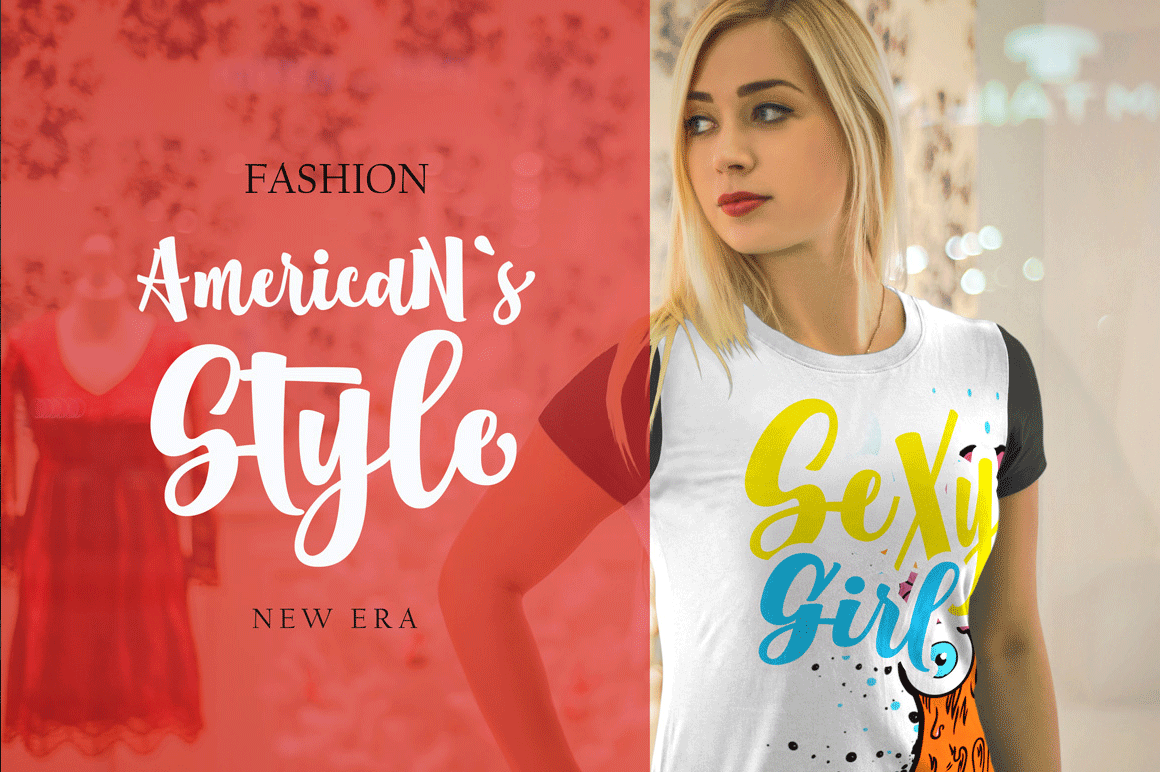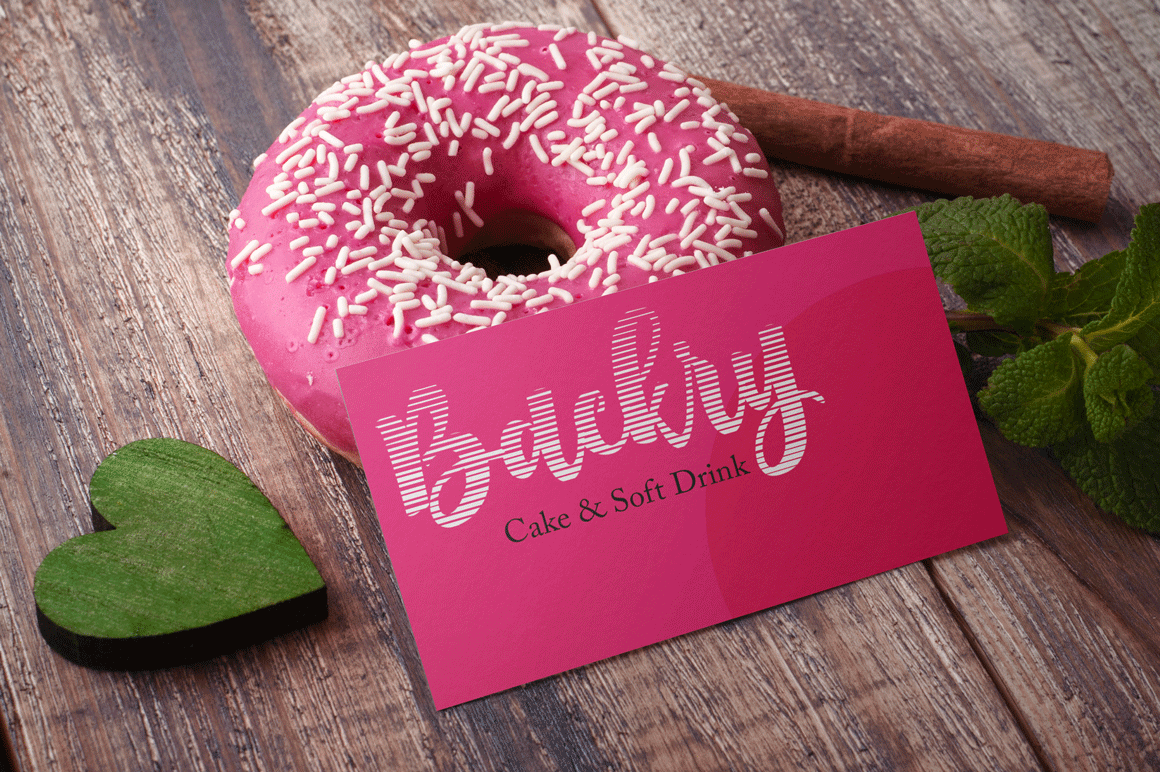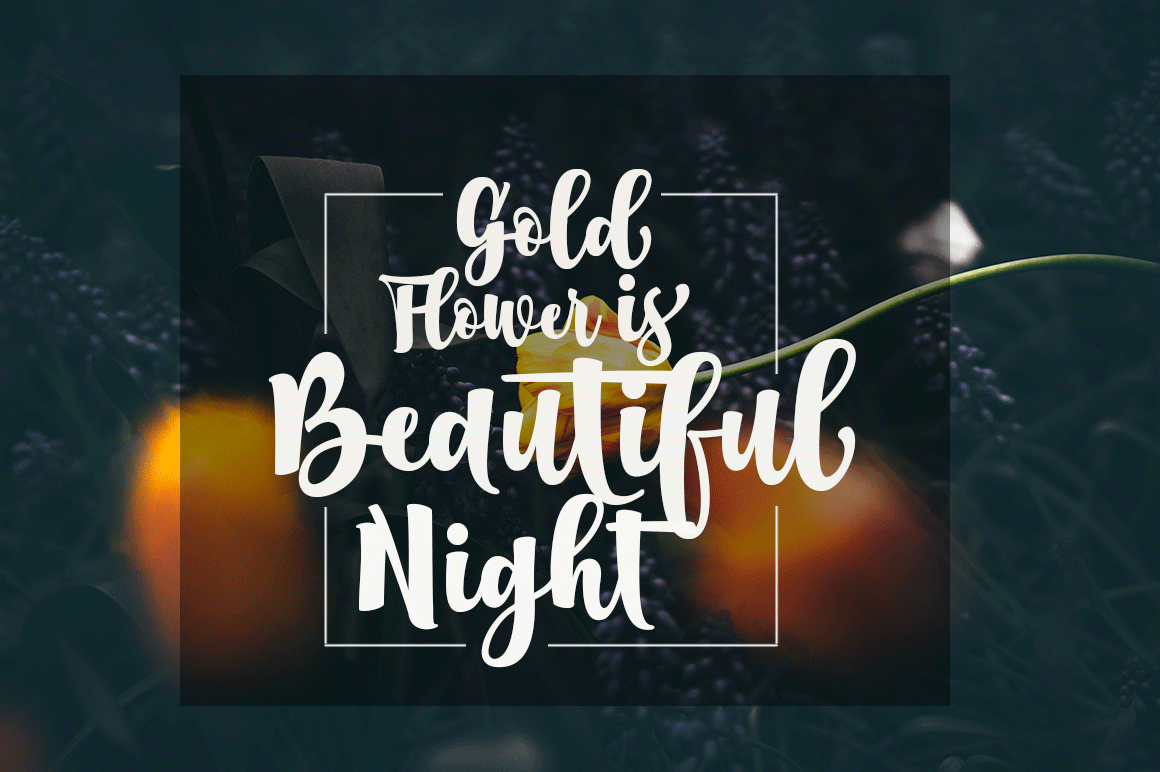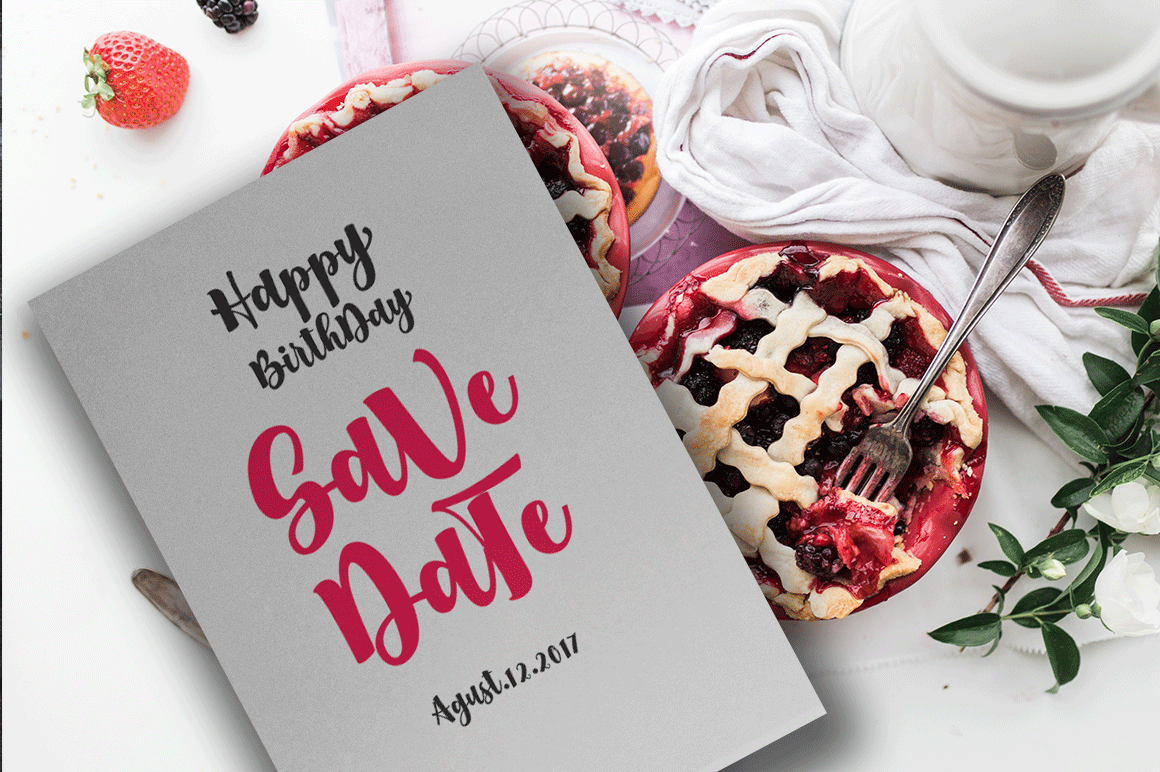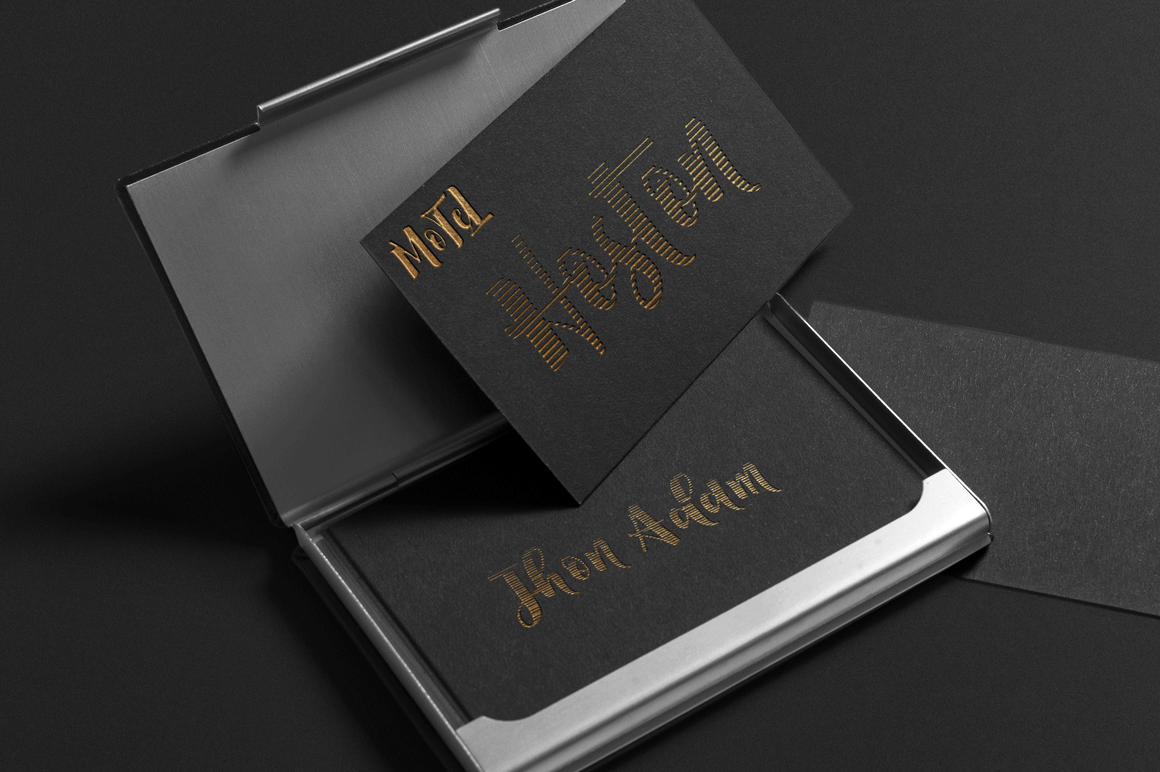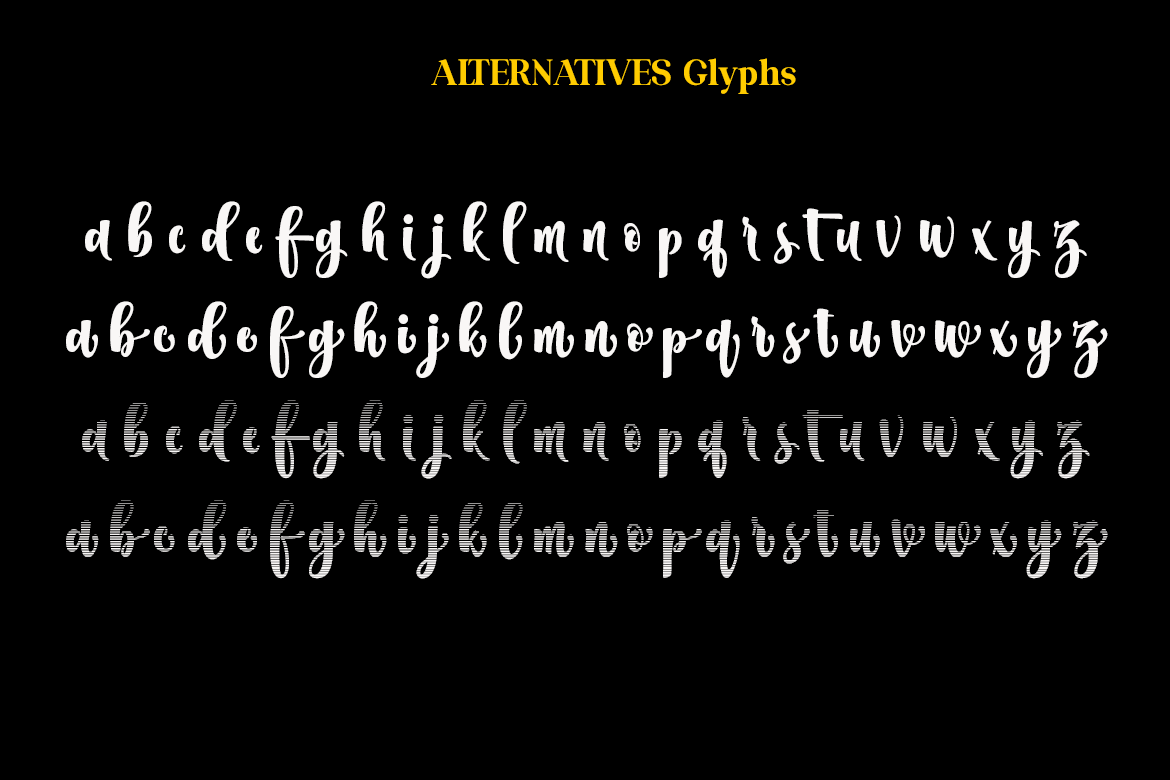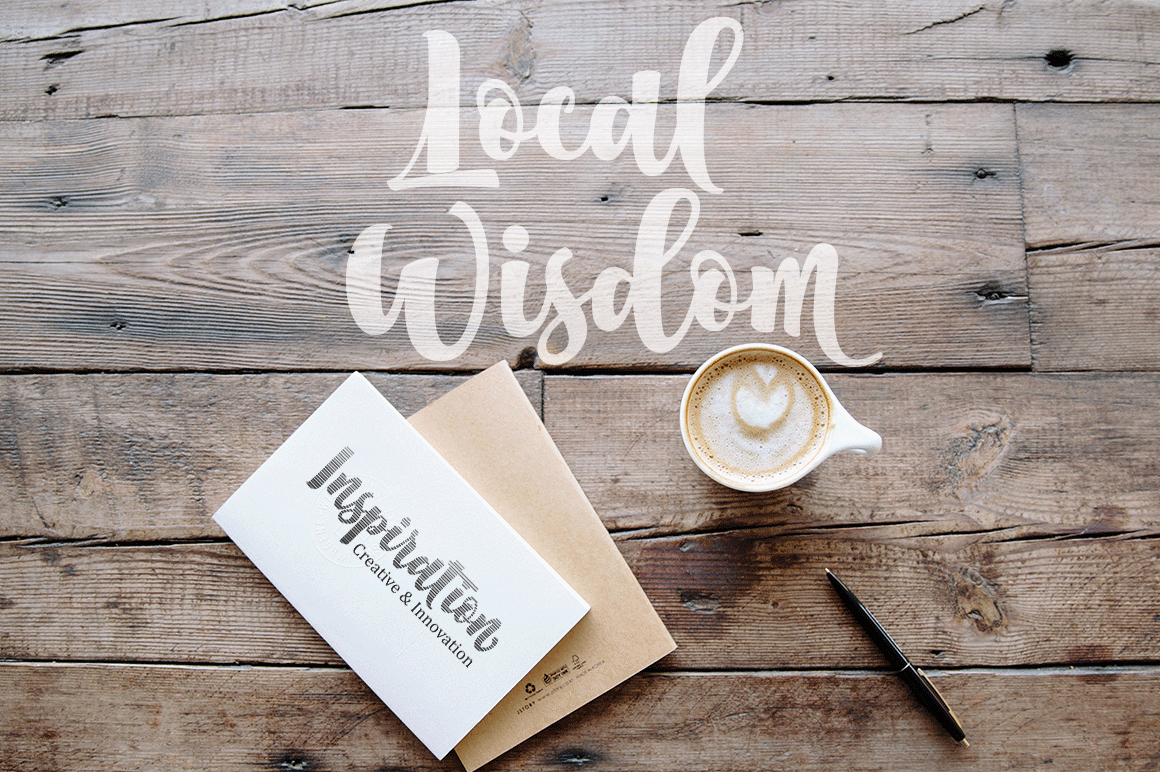
Boston
Boston is a handmade display font with a natural, lively style. Originally drawn by hand and carefully digitized, Boston retains the character and movement of authentic handwriting, giving every design a unique and personal touch.
Boston includes a variety of OpenType features, including Standard Ligatures, Stylistic Alternates, Stylistic Sets, and PUA-encoded characters (Private Use Area) for easy access to alternate glyphs.
Whether you're creating branding, logos, invitations, packaging, social media graphics, or other creative projects, Boston brings a warm, handcrafted feel to your work.